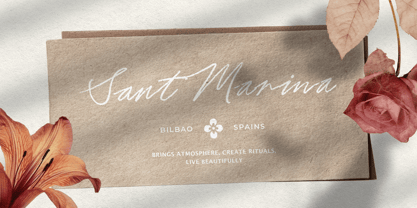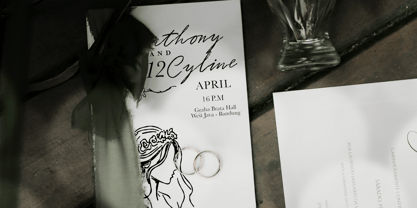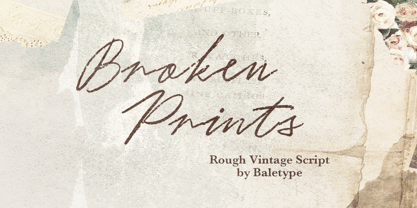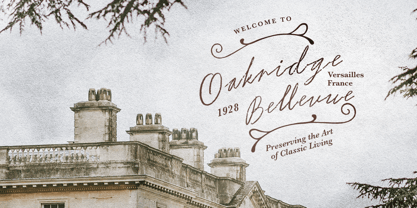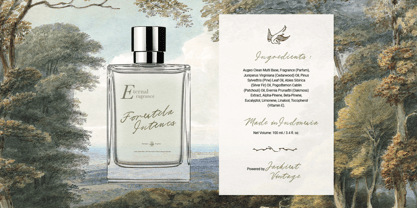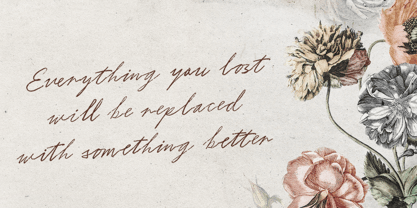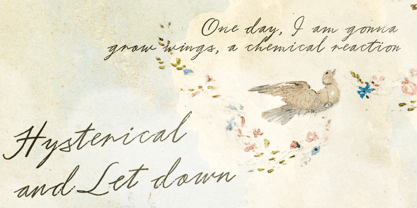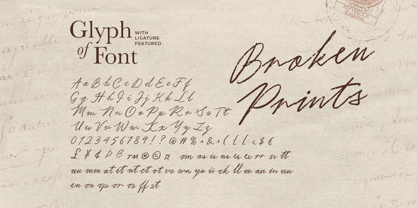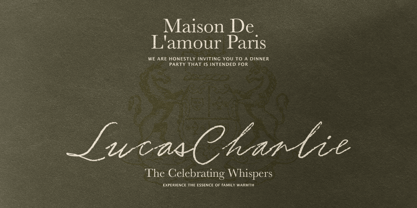
Broken Prints
by Bale Type
The Broken Prints Font Family was designed by Dzikrul Aulia and published by Bale Type. Broken Prints contains 1 styles. More about this family
Broken Prints is a rough and vintage looks script. With textured and rugged shape, this font will make your project looks naturally handwritten with faded ink. You can use this font for any purposes such as branding, logo, quote, handwriting, signature, or any designs that need to looks old and vintage. This font also include ligatures and already support multi language.